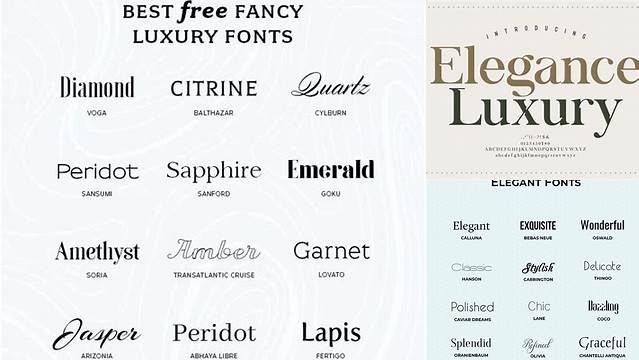
Elegant Fonts: Names & Inspiration For Luxury Designs
Choosing the right font is crucial when you're aiming for a luxurious and sophisticated design. The font sets the tone and can instantly elevate the perceived value of your brand or project. So, guys, let's dive deep into the world of luxurious fonts and discover some names and inspirations that will make your designs shine!
1. What Makes a Font Look Luxurious?
Before we jump into specific luxurious fonts names, let's understand what qualities make a font exude luxury. It’s not just about fancy swirls and elaborate details! Several factors contribute, including the font's weight, spacing, and overall aesthetic. A luxurious font often possesses a timeless elegance, a sense of refinement, and a touch of exclusivity. Think about high-end fashion brands, luxury car logos, or the packaging of premium products – the fonts they use are carefully selected to convey a message of quality and sophistication. Things like clean lines, balanced proportions, and subtle serifs or a modern sans-serif design can all contribute to a luxurious feel. It's really about finding that perfect balance between readability and visual appeal. Don't you agree?
2. Serif Fonts for a Classic Luxurious Look
Serif fonts, with their small decorative strokes at the ends of letters, are often associated with tradition, authority, and elegance. This makes them a great choice for conveying a sense of luxury and sophistication. Think about fonts like Times New Roman (yes, even that one can be used well!), Garamond, or Baskerville. They have a certain gravitas that works well for brands that want to project a sense of history and prestige. But remember, it's not just about the font itself – it's about how you use it. Pairing a classic serif font with the right imagery and layout can create a truly stunning and luxurious design. Let's explore some specific serif luxurious fonts in more detail.
3. Garamond: An Epitome of Luxurious Font
Garamond is a classic serif font that has stood the test of time. Its elegant curves and balanced proportions make it a perfect choice for conveying a sense of luxury and sophistication. Garamond is highly readable, making it suitable for both headlines and body text. This versatility is one of the reasons it remains a popular choice in the design world. Think about using Garamond for high-end publications, branding materials, or even websites. Its timeless appeal ensures it will never look dated. When used effectively, Garamond can instantly elevate the perceived value of your design. The key is to pair it with complementary design elements, such as high-quality imagery and a clean layout. So, if you are in search of luxurious fonts, Garamond will be a very wise choice!
4. Baskerville: Refined and Luxurious Serif
Baskerville is another elegant serif font that exudes luxury. It’s known for its sharp serifs and contrasting thick and thin strokes, giving it a refined and sophisticated appearance. Baskerville has a slightly more modern feel than Garamond, making it a good choice for brands that want to project both tradition and innovation. Consider using Baskerville for your logo, stationery, or website headlines. Its distinctive character will help your brand stand out from the crowd. Like Garamond, Baskerville is highly readable, making it a practical choice for a variety of design applications. Using luxurious fonts like Baskerville is all about creating a feeling of elegance and exclusivity, which is essential for luxury brands.
5. Times New Roman: Can It Be Luxurious?
Okay, okay, I know what you're thinking – Times New Roman? Really? But hear me out! While it might be overused and associated with academic papers, Times New Roman can actually be used to create a luxurious feel when done right. The key is in the context. Pair it with a minimalist design, high-quality imagery, and ample white space, and you might be surprised at how elegant it can look. Think of it as the little black dress of fonts – simple, classic, and versatile. Of course, there are other, more obviously luxurious fonts out there, but don't completely dismiss Times New Roman. It can be a powerful tool in the right hands. Just remember, less is more when using this font for a luxury design.
6. Sans-Serif Fonts: Modern Luxury
While serif fonts often evoke a classic sense of luxury, sans-serif fonts can also be incredibly elegant and sophisticated. These fonts, which lack the small decorative strokes of serifs, often have a clean, modern aesthetic that works well for brands that want to project a contemporary image. Think about fonts like Helvetica, Futura, or Avenir – they have a sleek and minimalist feel that can be very effective in conveying luxury. The key with sans-serif luxurious fonts is to choose one that is well-balanced and highly readable. The best sans-serif fonts have a certain understated elegance that speaks volumes. They can be used effectively for both headlines and body text, making them a versatile choice for a variety of design projects.
7. Helvetica: The King of Clean, Luxurious Fonts
Helvetica is arguably one of the most famous and widely used sans-serif fonts in the world. Its clean lines and neutral design make it incredibly versatile, and it can certainly be used to create a luxurious feel. Helvetica is often used by high-end brands that want to project a sense of modernity and sophistication. Think about brands like BMW, Panasonic, and Target – they all use Helvetica in their branding. The key to using Helvetica for luxury is to pair it with other design elements that convey a sense of exclusivity, such as high-quality photography and a minimalist layout. It might seem simple, but the elegance of Helvetica lies in its simplicity.
8. Futura: A Geometric and Luxurious Font
Futura is a geometric sans-serif font that exudes modernity and luxury. Its clean lines and sharp angles give it a distinctive character that works well for brands that want to project a sense of innovation and sophistication. Futura is often used in architectural designs and high-end advertising, making it a great choice for luxury brands. Its geometric shapes give it a unique visual appeal that sets it apart from other sans-serif fonts. When choosing luxurious fonts, remember that Futura can be a powerful choice for creating a strong and memorable brand identity.
9. Avenir: A Modern and Luxurious Sans-Serif
Avenir is another excellent sans-serif font that lends itself well to luxury designs. It's a geometric font, similar to Futura, but with a slightly softer and more approachable feel. Avenir is known for its clean lines and balanced proportions, making it highly readable and visually appealing. This makes it a versatile choice for a variety of design applications, from logos and branding materials to websites and publications. If you're looking for luxurious fonts that are both modern and elegant, Avenir is definitely worth considering.
10. Script Fonts: Adding a Touch of Luxurious Elegance
Script fonts, which mimic handwriting, can add a touch of elegance and luxury to your designs. However, they should be used sparingly and with care, as they can be difficult to read in large blocks of text. Script fonts are best used for headings, logos, or other short pieces of text where you want to make a statement. Think about fonts like Brush Script or Snell Roundhand – they have a certain flair and sophistication that can be perfect for creating a luxurious feel. The key is to choose a script font that is both beautiful and legible. Don't sacrifice readability for aesthetics! When it comes to luxurious fonts, script fonts can be the perfect finishing touch, but remember, less is more.
11. Brush Script: A Classic Script for Luxury Designs
Brush Script is a classic script font that has been used in design for decades. Its flowing lines and handwritten style give it a personal and elegant feel, making it a great choice for adding a touch of luxury to your designs. While it can easily appear dated if not used correctly, with the right treatment and context, this among other luxurious fonts can truly shine. Consider using Brush Script for invitations, logos, or short pieces of text where you want to make a statement. Just be sure to use it sparingly, as it can be difficult to read in large blocks of text.
12. Snell Roundhand: Elegant and Luxurious Script
Snell Roundhand is another beautiful script font that exudes luxury. Its elegant curves and calligraphic style give it a sophisticated and refined appearance. Snell Roundhand is often used for wedding invitations, branding materials, and other designs where you want to convey a sense of elegance and grace. As with other script luxurious fonts, it’s best to use this font sparingly, focusing on headlines and short text elements to maximize its impact without sacrificing readability. Remember, the goal is to enhance the overall design, not overwhelm it.
13. Display Fonts: Making a Luxurious Statement
Display fonts are designed to be used for headlines, logos, and other large text elements. They often have unique and eye-catching designs that can make a strong statement. When choosing display luxurious fonts, it's important to find one that is both visually appealing and legible. A well-chosen display font can instantly elevate the perceived value of your design. Think about fonts with bold strokes, unique serifs, or interesting letterforms. The possibilities are endless! Just remember to use display fonts sparingly and pair them with a more readable font for body text.
14. Choosing the Right Weight for a Luxurious Feel
The weight of a font – whether it's light, regular, bold, or extra-bold – can have a significant impact on the overall feel of your design. Lighter weights can convey a sense of delicacy and elegance, while heavier weights can project strength and authority. When it comes to luxurious fonts, it's important to choose a weight that complements the overall aesthetic of your design. A lighter weight might be perfect for a delicate and refined design, while a heavier weight might be more appropriate for a bold and impactful design. Experiment with different weights to see what works best for your specific project. Don't be afraid to play around and see what feels right!
15. The Importance of Kerning and Leading in Luxury Design
Kerning (the space between individual letters) and leading (the space between lines of text) are crucial elements of typography that can greatly affect the readability and visual appeal of your design. In luxury design, attention to detail is paramount, and this includes fine-tuning the kerning and leading. Proper kerning ensures that the letters are evenly spaced and create a harmonious visual rhythm. Adequate leading makes the text easier to read and prevents it from feeling cramped. These seemingly small details can make a big difference in the overall impression of luxury and sophistication.
16. Pairing Luxurious Fonts for Maximum Impact
Choosing the right luxurious fonts to pair together can be a bit of an art. The goal is to create a harmonious balance between different fonts, so they complement each other rather than clash. A common strategy is to pair a serif font with a sans-serif font. For example, you might use a classic serif font like Garamond for your headlines and a clean sans-serif font like Helvetica for your body text. Alternatively, you could pair a bold display font with a more understated sans-serif font. The key is to experiment and see what works best for your specific design. Don't be afraid to mix and match until you find the perfect combination!
17. Color and Luxurious Fonts: A Perfect Match
The colors you use in your design can greatly enhance the perceived luxury of your fonts. Certain colors, such as gold, silver, and deep jewel tones, are often associated with luxury and sophistication. Pairing these colors with elegant fonts can create a powerful visual impact. For example, gold text on a black background can exude opulence and elegance. Similarly, a deep navy blue paired with a classic serif font can convey a sense of authority and sophistication. When choosing colors for your luxury design, consider the overall message you want to communicate and select colors that complement your chosen fonts.
18. Using White Space to Enhance Luxurious Typography
White space, also known as negative space, is the empty space around and between the elements in your design. It's a crucial element of design that can greatly enhance the visual appeal and readability of your typography. In luxury design, white space is particularly important, as it can help to create a sense of elegance and sophistication. Ample white space allows your fonts to breathe and stand out, making them more impactful. Avoid overcrowding your design with too many elements, and instead, embrace the power of white space to create a clean and luxurious aesthetic.
19. The Psychology of Luxurious Fonts
Fonts, believe it or not, have a psychology of their own! Different fonts evoke different emotions and associations. Serif fonts, for example, are often associated with tradition, authority, and elegance, while sans-serif fonts tend to project a more modern and minimalist feel. Script fonts can convey a sense of elegance and personal touch. When choosing luxurious fonts, it's important to consider the psychological impact of your font choices. What message do you want to communicate? What emotions do you want to evoke? By understanding the psychology of fonts, you can make more informed decisions and create designs that truly resonate with your audience.
20. Luxurious Fonts in Logo Design
The font you choose for your logo is crucial, as it's one of the first things people will notice about your brand. For brands aiming for a luxury image, selecting the right font is paramount. A well-chosen font can instantly convey a sense of sophistication, elegance, and quality. Consider the overall aesthetic of your brand and choose a font that aligns with your brand values. A classic serif font might be perfect for a traditional luxury brand, while a clean sans-serif font could be a better choice for a modern luxury brand. Think about iconic luxury brand logos – many of them feature simple, elegant fonts that have stood the test of time. When it comes to luxurious fonts for logos, simplicity and timelessness are often key.
21. Luxurious Fonts in Web Design
Typography plays a crucial role in web design, and choosing the right fonts can greatly enhance the user experience and overall aesthetic of your website. For websites aiming for a luxury feel, font selection is especially important. Consider the readability of your fonts, especially for body text. While elegant display fonts can be used for headlines, it's important to choose a font that is easy on the eyes for longer blocks of text. Also, think about how your fonts will render on different devices and browsers. A font that looks great on your computer might not look as good on a mobile device. When selecting luxurious fonts for web design, make sure to prioritize both aesthetics and functionality.
22. Luxurious Fonts in Print Design
In print design, the choice of font is just as important as it is in digital design. Whether you're designing a brochure, a business card, or a magazine, your font choices can greatly impact the overall impression of your design. For luxury print designs, consider using high-quality fonts that are specifically designed for print. These fonts often have subtle details and refinements that make them look stunning in print. Pay attention to the weight and size of your fonts, and make sure they are legible and visually appealing. Using the right luxurious fonts in print design can elevate your project and convey a sense of quality and sophistication.
23. How to Identify a Luxurious Font
So, how can you tell if a font is luxurious? There's no single definition, but there are some key characteristics to look for. Generally, luxurious fonts often possess a timeless elegance, a sense of refinement, and a touch of exclusivity. They may have clean lines, balanced proportions, and subtle serifs. They might also be well-known fonts that have been used in luxury branding for years. Ultimately, identifying a luxurious font is a matter of taste and context. What feels luxurious for one project might not feel luxurious for another. Trust your instincts and choose fonts that resonate with the overall aesthetic you're trying to create.
24. Where to Find Luxurious Fonts
There are many resources for finding luxurious fonts, both free and paid. Font foundries like Linotype, Adobe Fonts, and MyFonts offer a wide selection of high-quality fonts, including many that are perfect for luxury designs. You can also find free fonts on websites like Google Fonts and Font Squirrel, although the selection may be more limited. When choosing a font, be sure to check the licensing terms to ensure you can use it for your intended purpose. And remember, investing in high-quality fonts can be a worthwhile investment for your brand, especially if you're aiming for a luxury image.
25. The Cost of Luxurious Fonts
Luxurious fonts, like any high-quality design asset, can range in price. Some fonts are available for free, particularly through resources like Google Fonts, but these often come with limitations in terms of variety and unique character. Premium fonts, on the other hand, which are typically found on platforms like Adobe Fonts, MyFonts, or directly from font foundries, often come with a cost. This cost reflects the craftsmanship, detail, and licensing rights associated with the font. While the initial investment might seem significant, it’s important to view it as a strategic investment in your brand’s image. A well-chosen, high-quality font can significantly elevate the perceived value and sophistication of your designs.
26. Font Licensing for Luxurious Designs
When you're working with luxurious fonts, it's crucial to understand font licensing. Font licenses dictate how you're allowed to use a particular font. Some fonts are free for personal use but require a commercial license for business projects. Other fonts have different licensing options depending on the number of users or the type of project. Make sure you carefully read the licensing terms before using a font to avoid any potential legal issues. Using a font without the proper license can result in fines or other penalties. So, always double-check the license before incorporating a font into your design.
27. The Future of Luxurious Typography
The world of typography is constantly evolving, with new fonts and technologies emerging all the time. What does the future hold for luxurious typography? We can expect to see more variable fonts, which offer greater flexibility and customization options. We might also see more fonts that are specifically designed for digital screens, taking into account factors like screen resolution and readability. And of course, there will always be a demand for classic, timeless fonts that convey a sense of elegance and sophistication. The future of luxurious fonts is likely to be a blend of innovation and tradition, with designers constantly pushing the boundaries of what's possible.
28. Luxurious Fonts and Brand Identity
Your brand identity is the visual representation of your brand, and typography is a crucial component of that identity. When building a luxury brand, your font choices must reflect the brand's values and personality. A sophisticated and elegant font can instantly convey a sense of quality and exclusivity. Think about brands like Chanel, Gucci, or Hermès – their logos feature fonts that are synonymous with luxury. Choosing the right fonts for your brand identity is an investment in your brand's future. It's about creating a consistent and memorable visual identity that resonates with your target audience.
29. Common Mistakes When Choosing Luxurious Fonts
Choosing luxurious fonts might seem straightforward, but there are common pitfalls to avoid. One frequent mistake is selecting fonts that are too ornate or difficult to read. While some script or display fonts may look elegant, they can hinder readability, especially in body text. Another error is using too many different fonts in a single design, creating a cluttered and inconsistent look. It’s also crucial to ensure that the fonts you choose align with the overall tone and message of your brand. A font that appears modern and minimalist might not be suitable for a brand aiming for a classic, traditional feel. Always prioritize readability and cohesiveness when making your font selections.
30. Maintaining Consistency with Luxurious Fonts
Consistency is key when it comes to branding, and that includes your font choices. Once you've chosen a set of luxurious fonts for your brand, it's important to use them consistently across all of your materials, from your logo and website to your marketing collateral and social media graphics. This helps to create a strong and recognizable brand identity. Create a style guide that outlines your font choices and how they should be used. This will help ensure that everyone on your team is using the same fonts in the same way. Consistent use of luxurious fonts reinforces your brand's image of quality and sophistication.